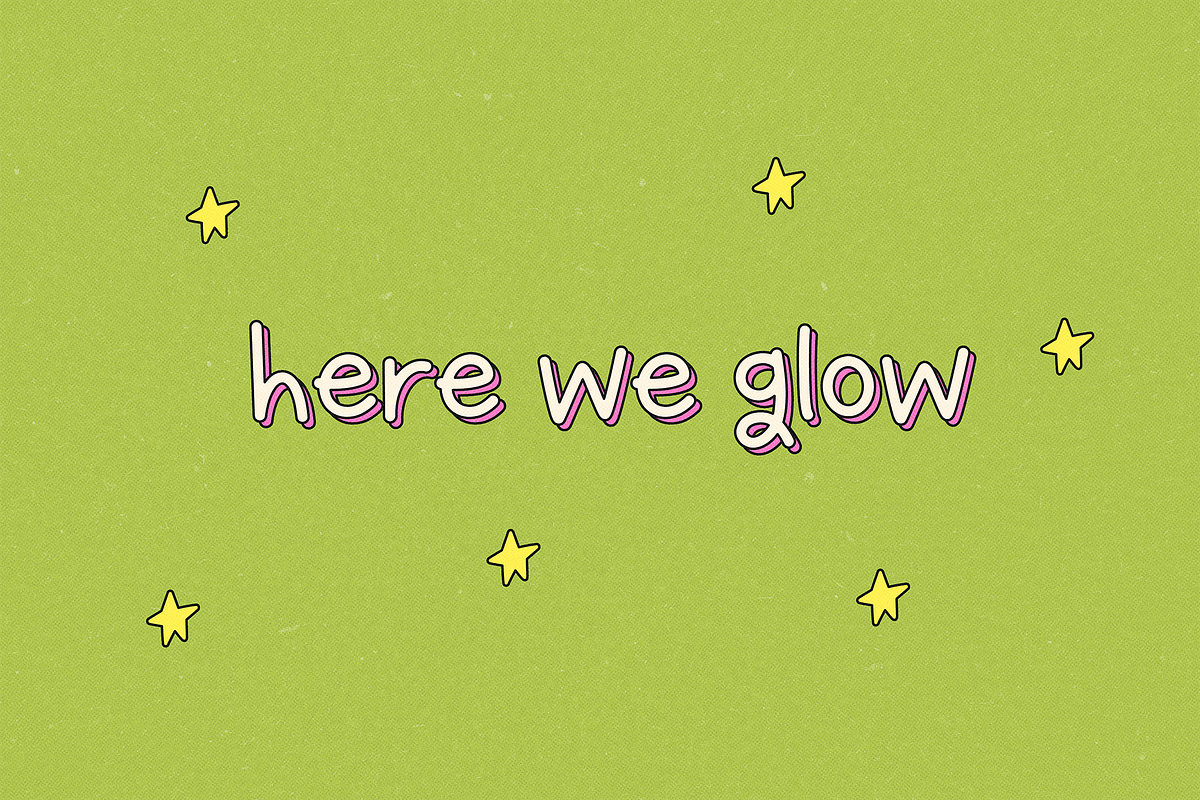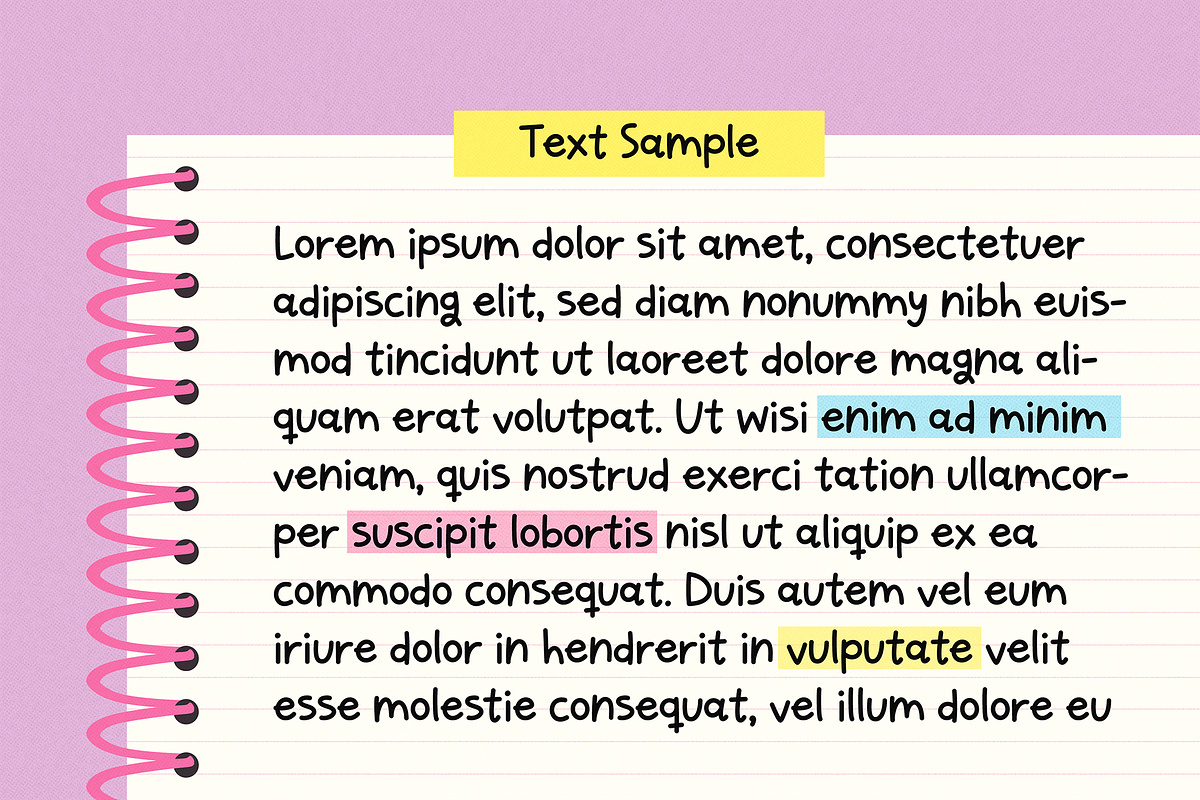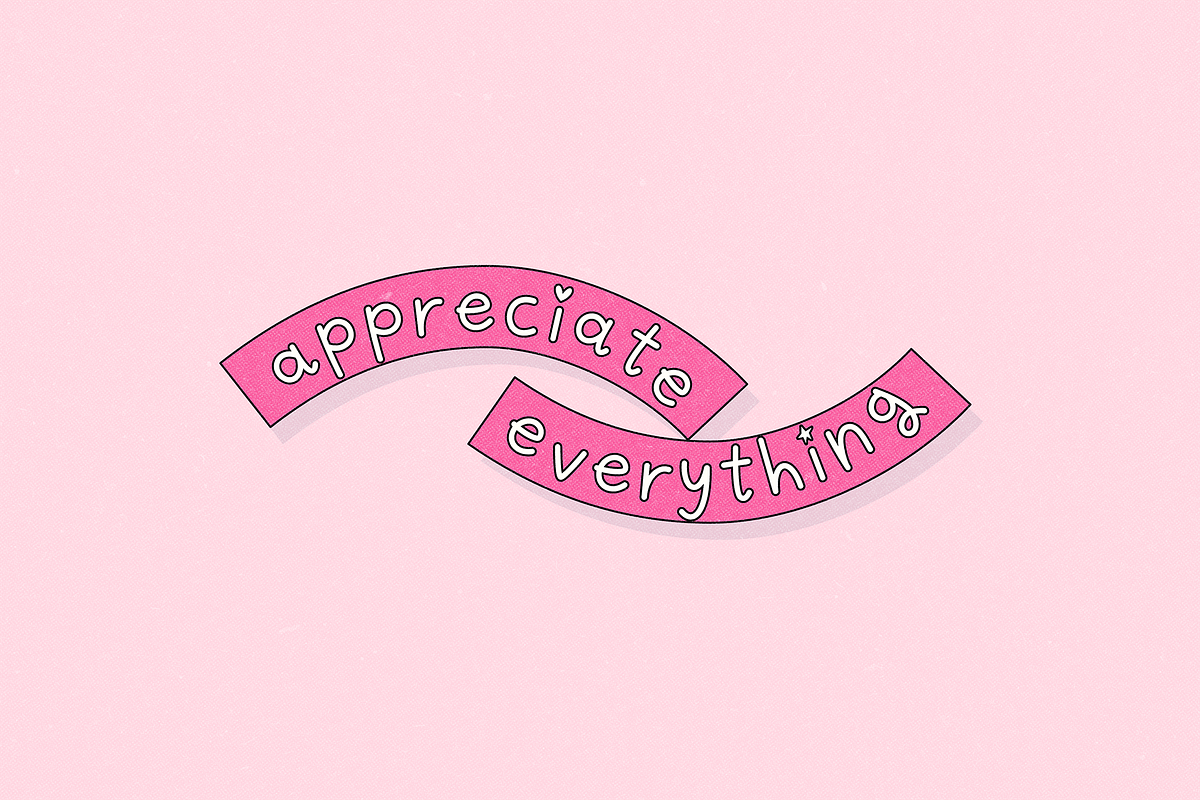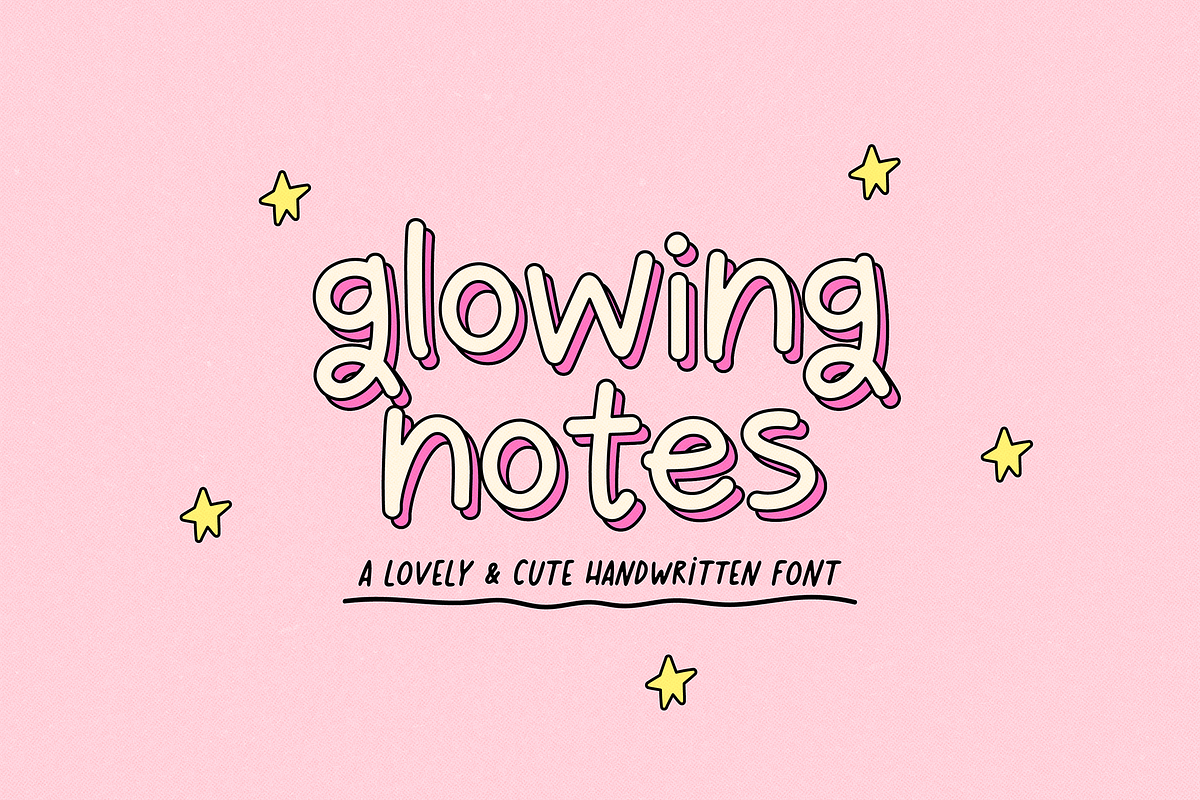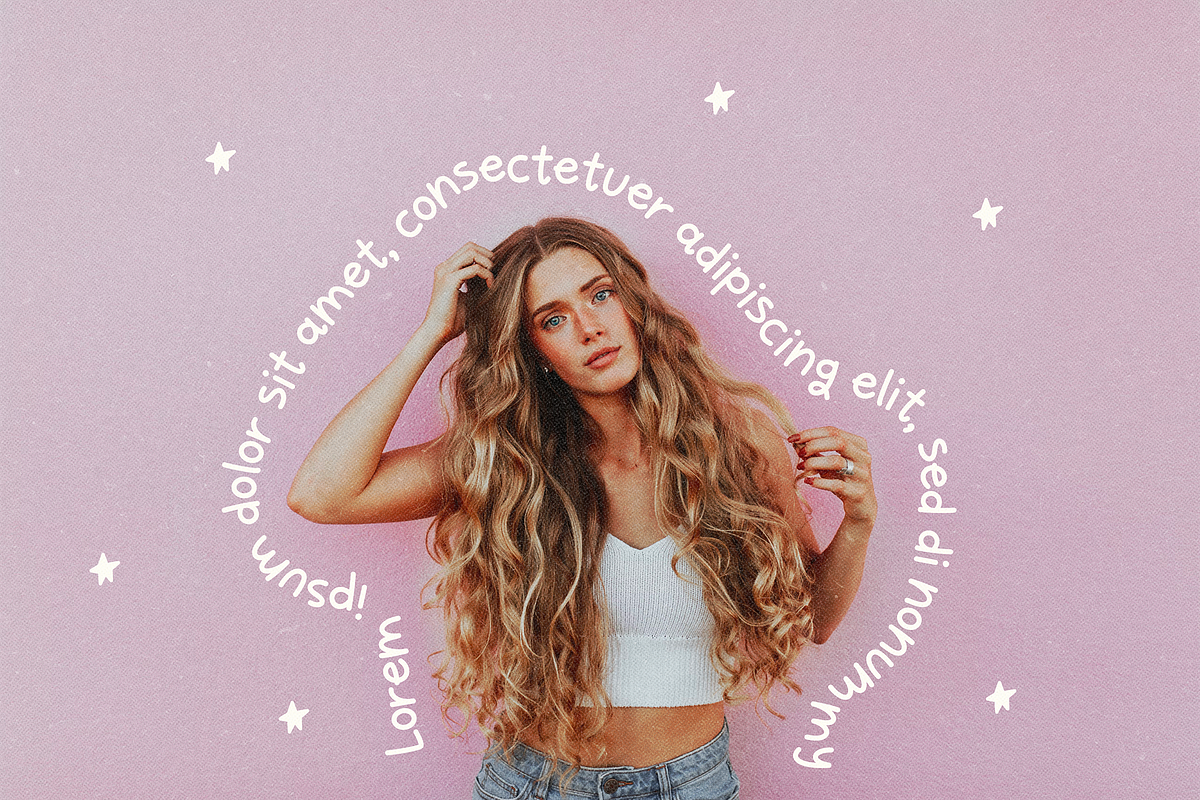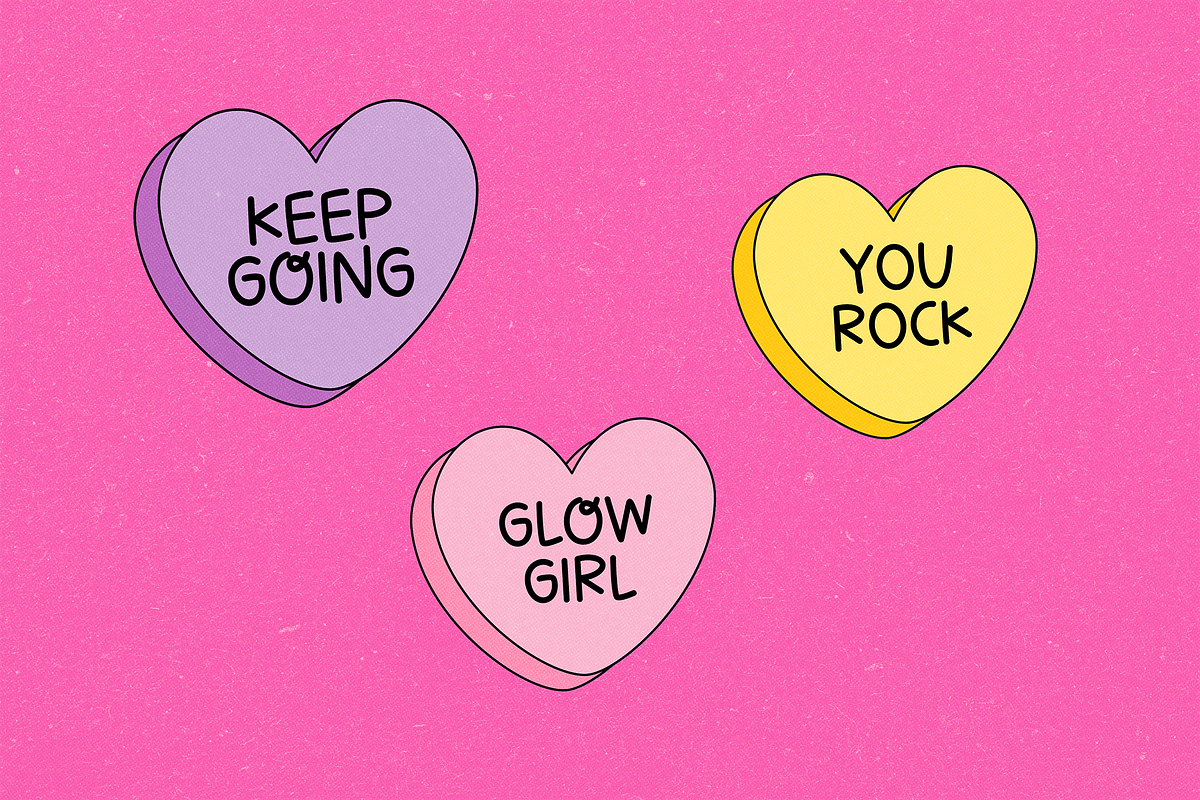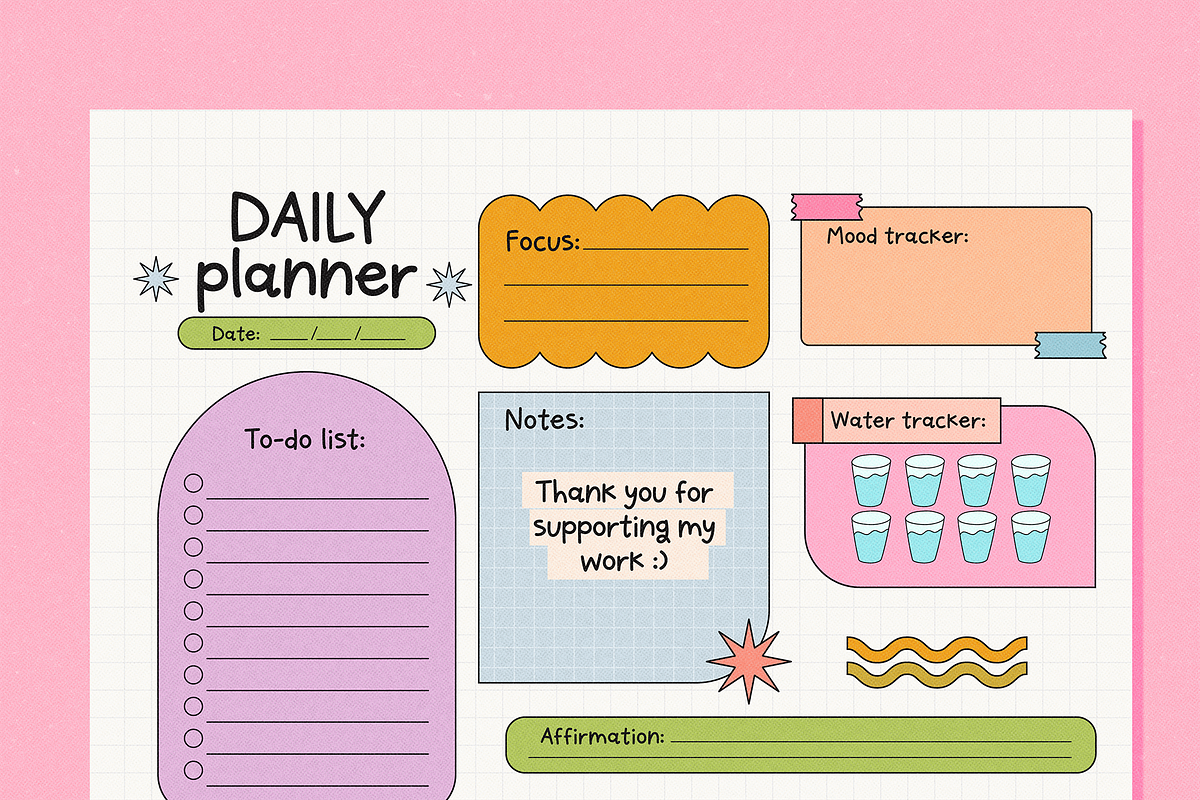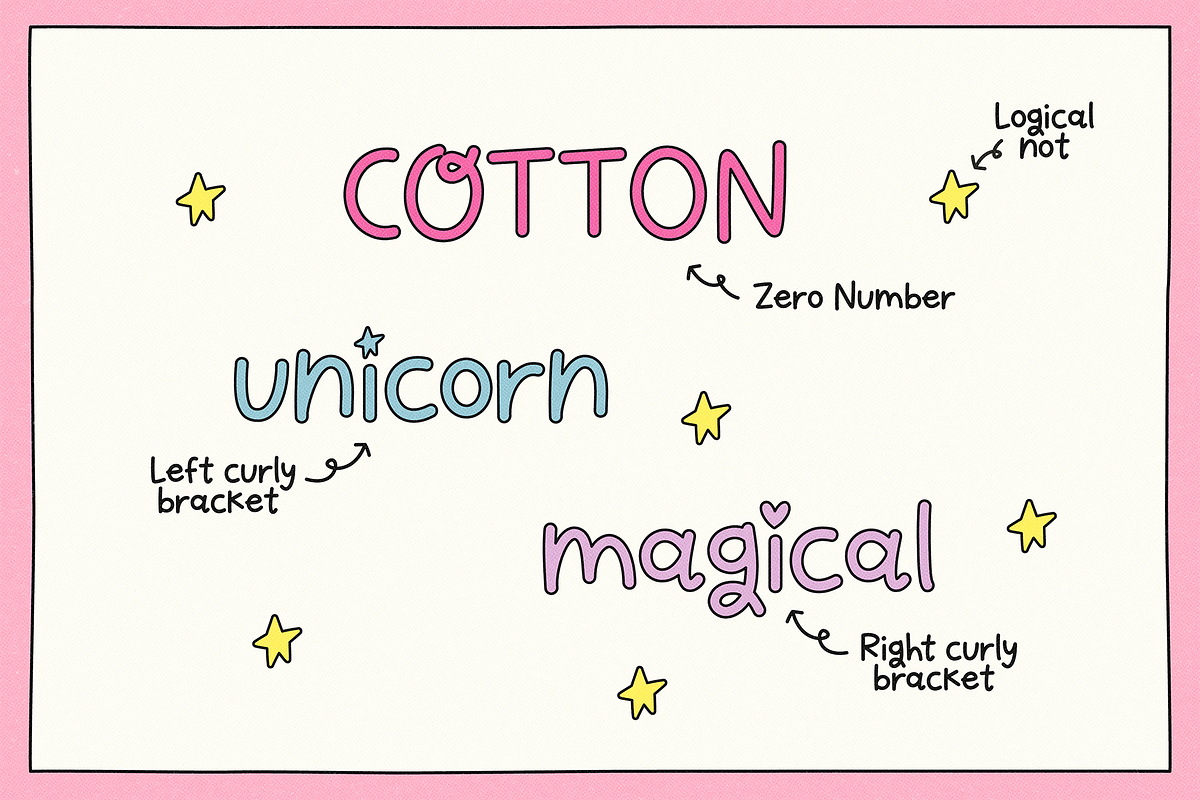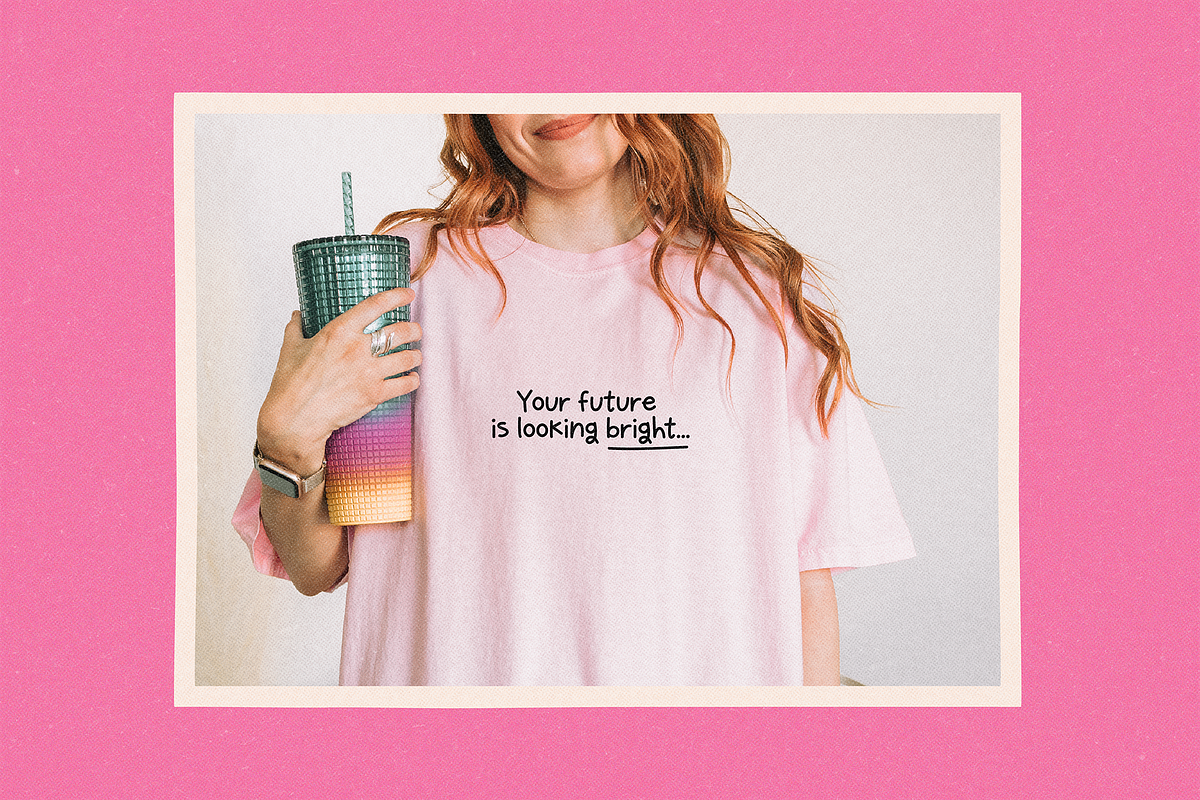
GLOWING NOTES | CUTE FONT
Glowing Notes - Handwritten Font
Introducing “Glowing Notes”, a charming handwritten font designed to bring a touch of cuteness and warmth to your digital notes, social media posts, planner templates, stickers, and more. Additionally, you can replace the letter "i" with a heart or star, adding a unique and cute touch. Make your texts shine with Glowing Notes!
Whether you're creating inspirational quotes, engaging social media content, or personalized planner layouts, Glowing Notes provides the versatility and style you need.
- Digital Notes: Keep your digital notes stylish and readable.
- Social Media: Make your posts pop with a cute handwritten touch.
- Planner Templates: Design stunning and organized planner pages.
- Quotes & Stickers: Create adorable quotes or stickers with ease.
- Photos: Add charming text overlays to your photos.
✷ Use the 3 symbols included to make cute compositions.
- Left Curly Bracket { – “i” with star
- Right Curly Bracket } – “i” with heart
- Logical not ¬ – Star
- You can also use the number zero “0” as “O”.